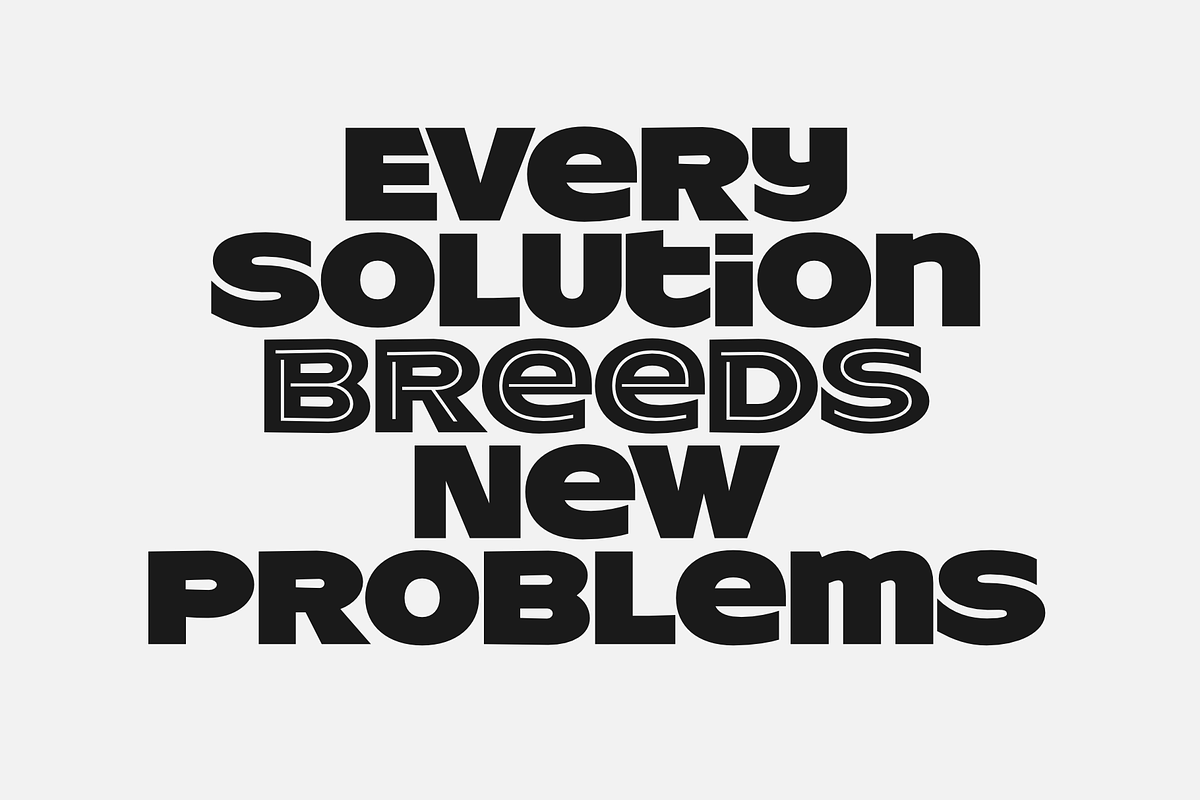
ResotYc & ResotYk
Decorative, unicase fonts: ResotYc & ResotYk with many Contextual Alternate Glyphs.
TIP: Play with UPPeRCaSe and lowercAsE and have fun!!
The bold style initially caught my eye with its bold upper and lower case letterforms having the same x-height, which allows for a nice even string of variegated text that doesn't bore, and also allowed me to overlap and tuck-in text on the headline I set with ResotYc. Also like the test.html that allows you to type in text—and the Polish copy on the page, that I could actually read after 50 years out of practice!